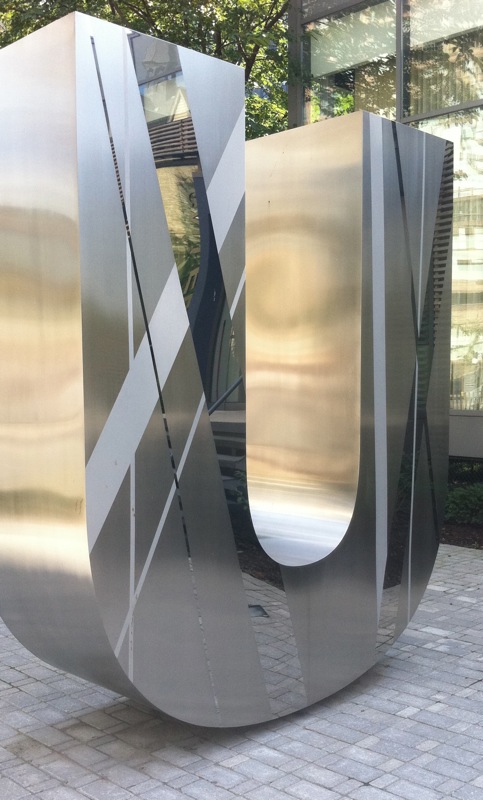
U
There’s something surreal about approaching a gigantic letter U. It’s a Sesame Street moment.
This letter stands near the sales centre for a new condo development called U Condominiums. The name seems to be a reference to the proximity to U of T, but it’s also a seductive call-out—”you”—to a potential buyer.
The reflective surface of this letter got me thinking about the self-regarding aspect of condo-buying, the desire to craft an ideal image of your life through your home. Stand in the right spot and you’ll see yourself mirrored, though with a bit of a funhouse effect.
Move to another spot and you’ll see the entrance to St. Basil’s Church reflected. So there’s a tension between two types of building, secular and sacred. A place that’s all about “U” and another, where you are asked to step beyond yourself.